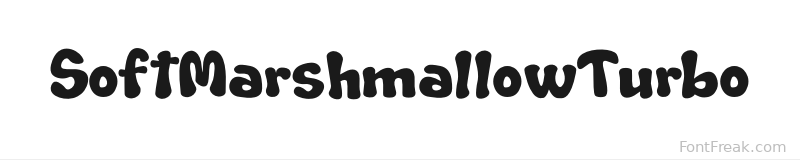
SoftMarshmallowTurbo
About SoftMarshmallowTurbo
SoftMarshmallowTurbo by Galdino Otten Fonts is a charming display typeface that beautifully merges playfulness with modern design. This font features a rounded, bubbly aesthetic that evokes a sense of warmth and friendliness, making it ideal for various creative projects. Its stroke weight is consistent, contributing to a soft appearance, while the spacing between characters is well-balanced, ensuring readability without compromising its whimsical charm. The decorative elements of the SoftMarshmallowTurbo font add a unique character, making it visually appealing and engaging.
This versatile typeface shines in a variety of use cases. It is perfect for crafting eye-catching wedding invitations that convey a sense of joy and celebration. Its playful nature also makes it an excellent choice for children's book covers, where a fun and approachable feel is essential. Additionally, restaurant menus can benefit from SoftMarshmallowTurbo, as the font can create a welcoming atmosphere that entices diners. It can also be effectively utilized in branding projects, especially for businesses targeting families or young audiences, as its friendly vibe aligns well with such themes.
What truly sets SoftMarshmallowTurbo apart is its ability to combine a lighthearted aesthetic with versatility. Whether used in digital or print formats, this typeface consistently delivers a sense of joy and warmth, making it a delightful addition to any design toolkit. Embrace the playful spirit of SoftMarshmallowTurbo and elevate your creative projects today.